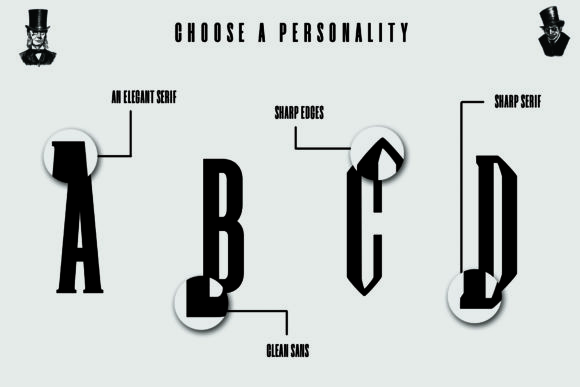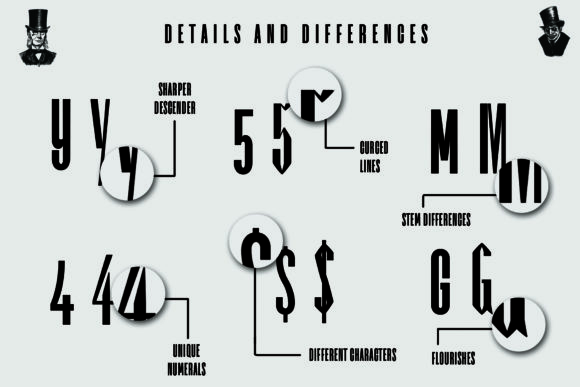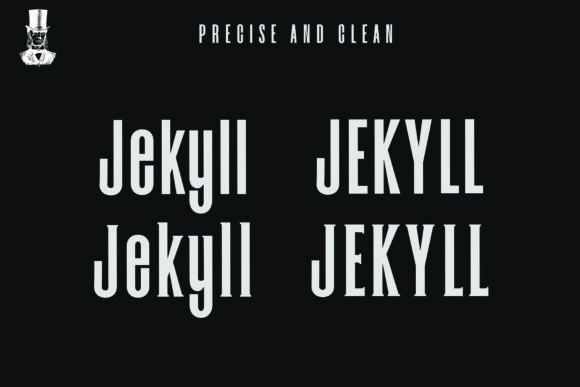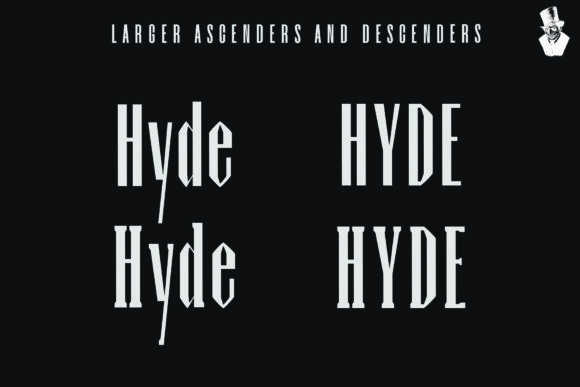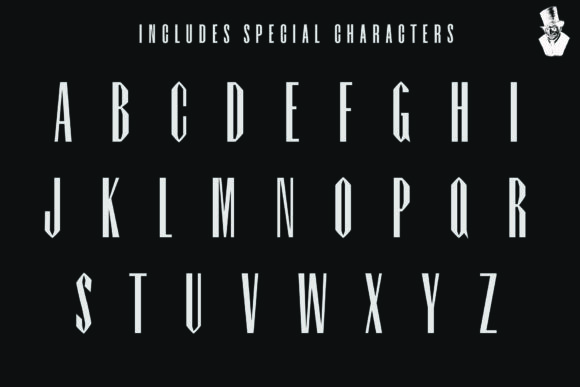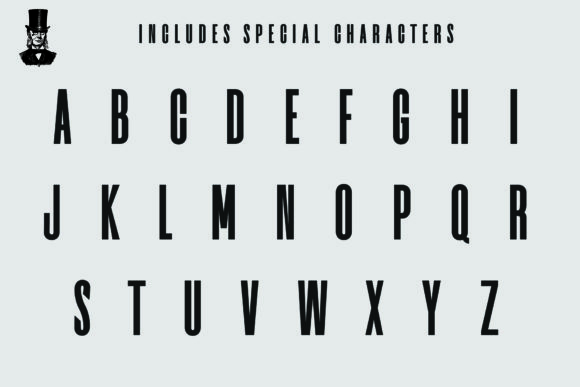
The Dark Side of Design: Unleashing the Jekyll & Hyde Font
Have you ever stared at a blank page, searching for the perfect font to bring your design to life? The blank slate can be daunting, but what if you could tap into your inner darkness and unleash a font that embodies the essence of mischief and mayhem? Enter the Jekyll & Hyde Font, a twisted display font that will add a devious touch to any design project.
This font is not for the faint of heart. With its dark edge and eerie charm, the Jekyll & Hyde Font is perfect for designers who want to add a touch of mystery and intrigue to their work. Whether you’re creating a spooky poster or a rebellious logo, this font will help you tap into your inner creativity and push the boundaries of what’s possible.
Jekyll & Hyde Font Key Features
- Font Family: Jekyll & Hyde is a serif font with a unique, gothic-inspired design.
- Unique Characteristics: Jekyll & Hyde features a distinctive, hand-drawn feel with intricate details and ornate flourishes, making it ideal for creating a dramatic or atmospheric effect in designs.
Jekyll & Hyde Font Review
Overall, I was really excited to dive into the Jekyll & Hyde font. It’s a bold, dramatic font that screams horror movie vibes. ✨ I love the gothic-inspired aesthetic and the way the letters seem to lean in, as if they’re sharing a dark secret. ✨ The font comes with a range of weights and styles, making it perfect for designing anything from spooky posters to eerie book covers.
However, as with any font, there are some limitations. ⚠️ For one, the font can be a bit overwhelming when used in large quantities. The drama and flair can start to feel like too much, making it hard to read. ⚠️ Additionally, the font’s Gothic-inspired roots make it a bit tricky to pair with modern, clean designs.
Here are some pros and cons:
- ✨ Unique and dramatic aesthetic
- ✨ Wide range of weights and styles
- ⚠️ Can be overwhelming when used in large quantities
- ⚠️ Limited pairing options due to Gothic-inspired roots
Overall, I’d say the Jekyll & Hyde font is perfect for designers looking to add a touch of darkness and drama to their projects. Just be sure to use it sparingly and balance it out with cleaner, more modern elements.
The Jekyll & Hyde Font is ideal for creating dramatic, eerie, and mysterious designs. To get the most out of it, use it in conjunction with dark colors and bold graphics.
The Jekyll & Hyde Font is commonly used in horror-themed designs, such as:
- Halloween party invitations
- Spooky movie posters
- Creepy typography projects